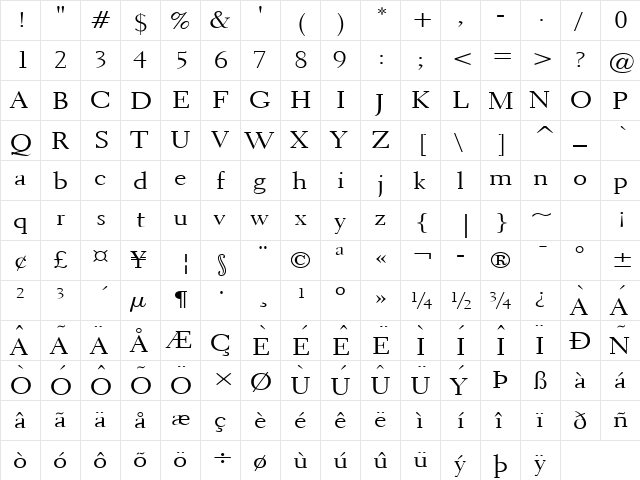
Transit 2 Wide Normal
Design Context for Transit 2 Wide Typeface
Transit 2 Wide takes a measured approach to typography — its balanced proportions and neutral character make it a reliable workhorse for both digital and print work.